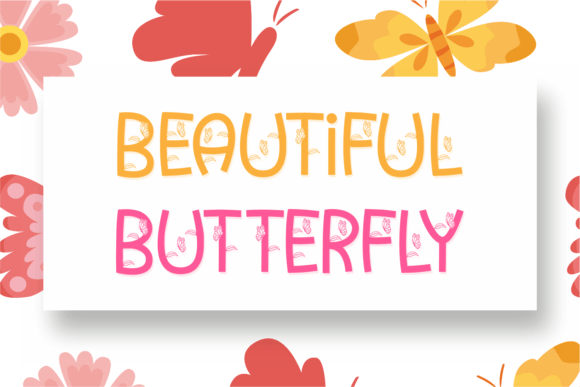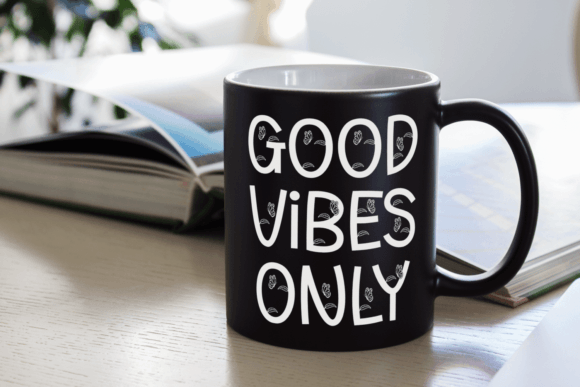
Unleashing Whimsy in Your Designs
Have you ever been stuck on a design project, searching for the perfect font to bring your idea to life? You’re not alone. Many designers face this challenge, but sometimes all it takes is a spark of inspiration to set your creativity ablaze. For me, that spark came when I stumbled upon the enchanting Fresh Breath Font. Its delicate butterfly details and charming design immediately captured my attention.
This whimsical decorative typeface is designed to add a touch of magic and wonder to any project, making it perfect for invitations, greeting cards, and children’s books. With its unique butterfly-inspired design, Fresh Breath Font is a valuable asset for designers looking to create captivating and imaginative designs that leave a lasting impression.
Fresh Breath Font Key Features
- Font Family: Fresh Breath Font is a unique, hand-drawn font designed to evoke a sense of freshness and cleanliness. It comes in multiple weights, from Light to Bold.
- Unique Characteristics: Fresh Breath Font features a distinctive, hand-drawn feel with subtle texture and imperfections, giving it a natural, organic look that sets it apart from other fonts.
Fresh Breath Font Review
I was excited to dive into the “Fresh Breath Font” and see if it could live up to its name. Here’s my honest take:
✨ The font’s playful, energetic feel is perfect for any project that needs a breath of fresh air. It’s especially great for designs that require a bit of whimsy, like children’s books or advertising campaigns.
✨ The font is incredibly versatile, with a wide range of weights and styles to choose from. This makes it easy to use in various contexts, from headlines to body text.
⚠️ One of the main drawbacks of the “Fresh Breath Font” is its lack of legibility in smaller font sizes. At certain point, the letters start to get a bit fuzzy and hard to read.
⚠️ The font also doesn’t include any Cyrillic or Greek characters, which might be a problem for designers who need to work with languages that use these alphabets.
Overall, I think the “Fresh Breath Font” is a great choice for designers who want to add a bit of fun and personality to their projects. While it may have some limitations, its versatility and playful feel make it a valuable addition to any design toolbox.
Recommendation
I would recommend the “Fresh Breath Font” to designers who:
- Need a fun, energetic font for a project
- Want a versatile font that can be used in various contexts
- Are working with languages that use the Latin alphabet
However, I would caution against using the font in projects where readability is crucial, such as in small print or for languages that require Cyrillic or Greek characters.
Getting the Most Out of Fresh Breath Font
For optimal results, use Fresh Breath Font in conjunction with other design elements that evoke a clean and modern aesthetic. This font is particularly well-suited for headings, titles, and short paragraphs of text.
Fresh Breath Font is commonly used in the following contexts:
– Branding and logo design
– Digital signage and advertising
– Print materials, such as business cards and brochures
– Web design and development
Alternatives to Fresh Breath Font for Designers
Great Vibes Font is a modern, elegant script font that conveys a sense of sophistication and playfulness. It’s ideal for use in branding, advertising, and editorial design. Great Vibes Font has a more refined and cursive feel compared to Fresh Breath Font, making it suitable for high-end and luxury brands.
What is the recommended font size for using Fresh Breath Font?
The recommended font size for Fresh Breath Font is between 12pt and 24pt, depending on the design context and intended use. For optimal legibility, we recommend using the font at a size of at least 14pt.